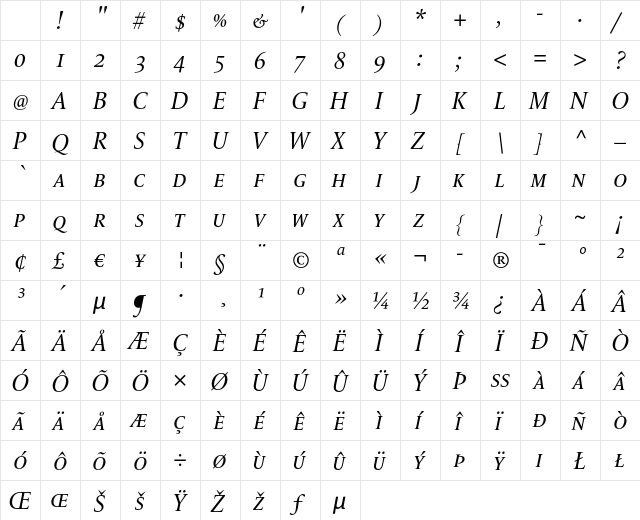
Complete LeMonde Livre SC Italic glyph index. Displaying only characters natively supported by LeMonde Livre SC Italic font.
LeMonde Livre SC is a composed and adaptable typeface that performs quietly and consistently across a wide range of design contexts. The slanted form adds forward momentum and visual energy.
Pro Tip: Use LeMonde Livre SC for emphasis, pull quotes, and subheadings where its slanted energy can add rhythm to the layout.